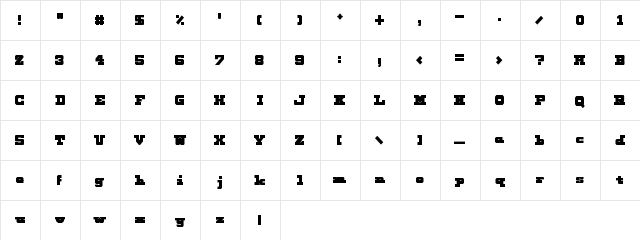
Masphalt Regular
| Designer | David DeSandro |
Design Context for Masphalt Typeface
Masphalt offers clean, dependable letterforms without strong stylistic allegiance, making it a practical choice for designers who need flexibility.
Pro Tip: Pair Masphalt with a font of contrasting weight or personality to build a more expressive typographic hierarchy.